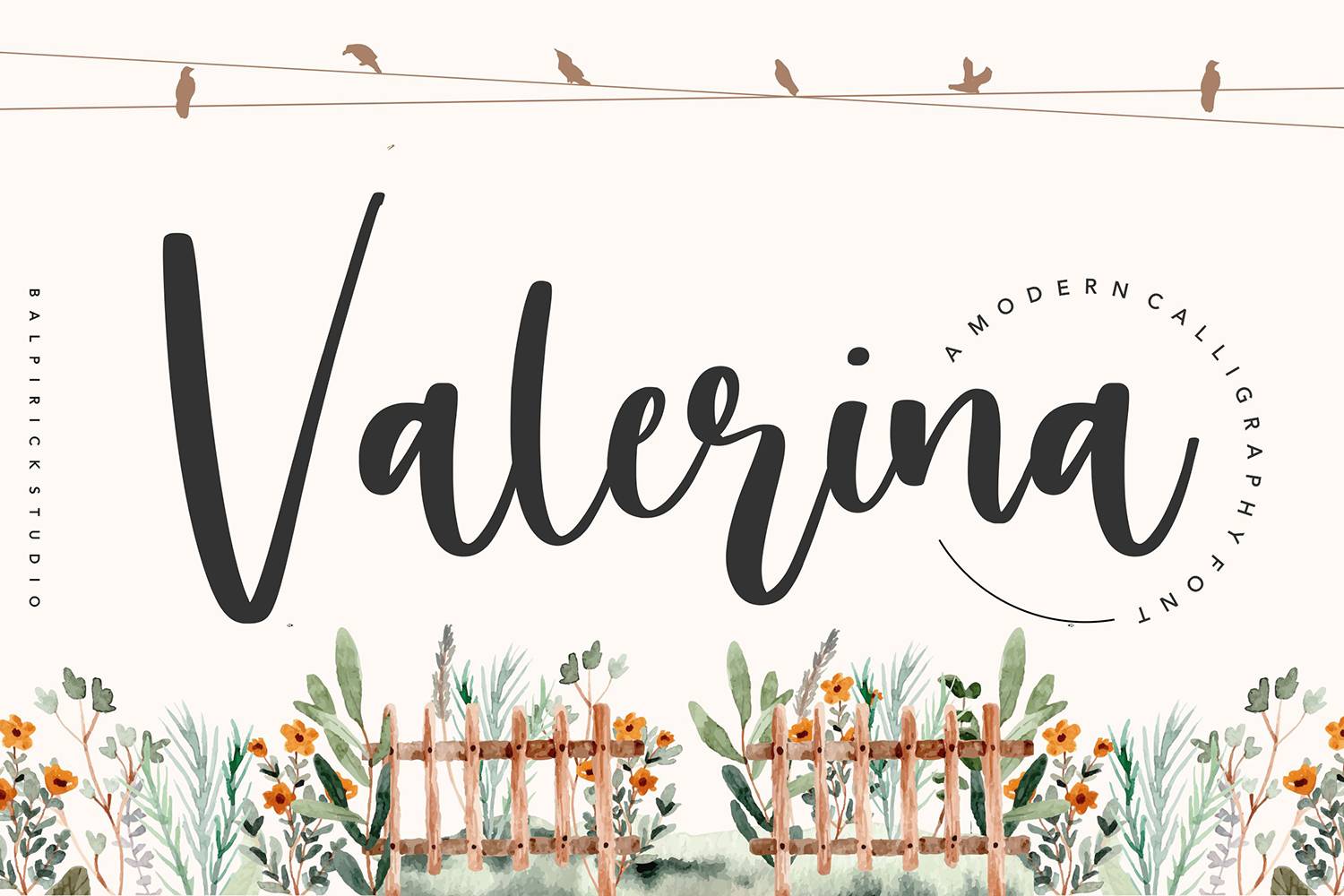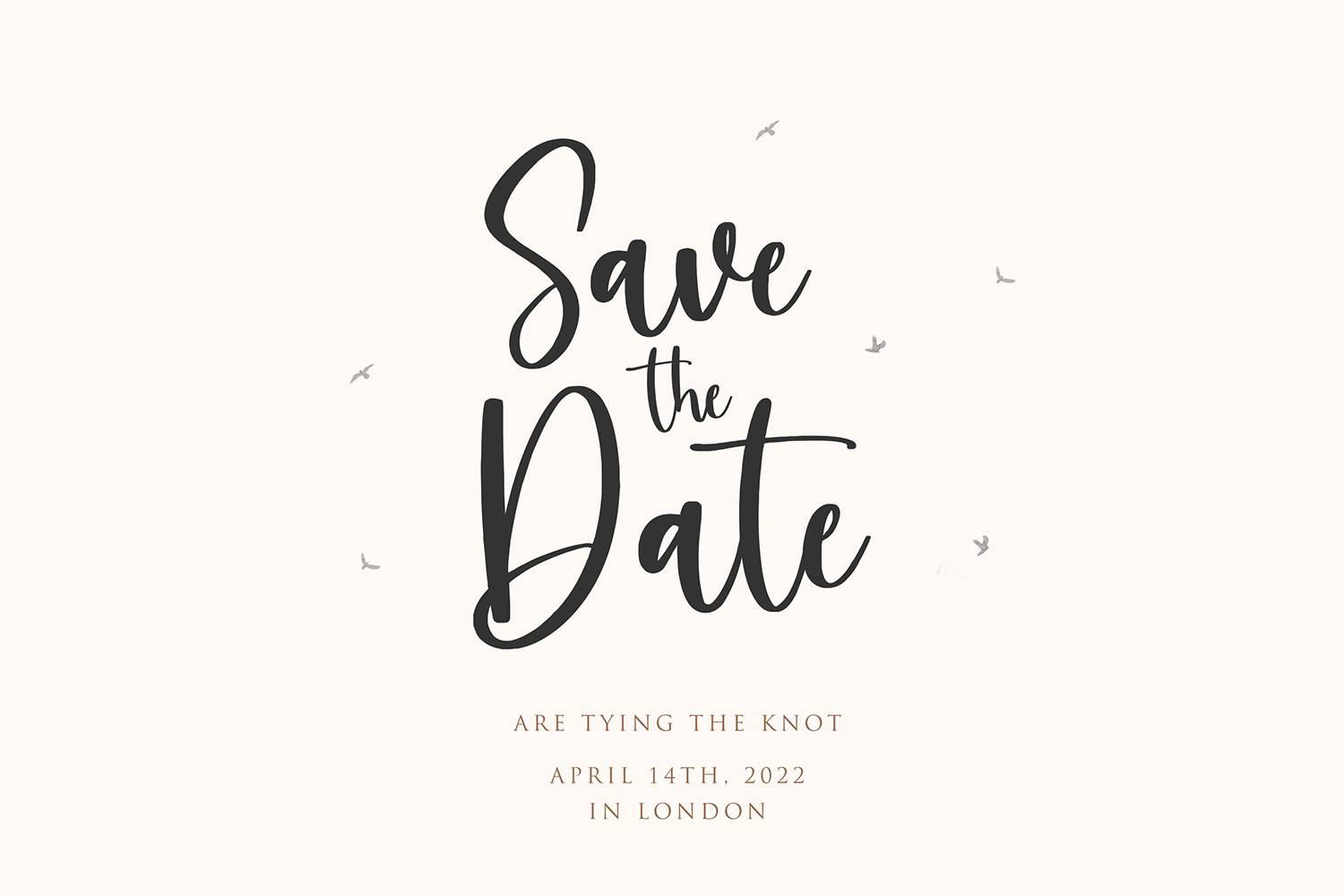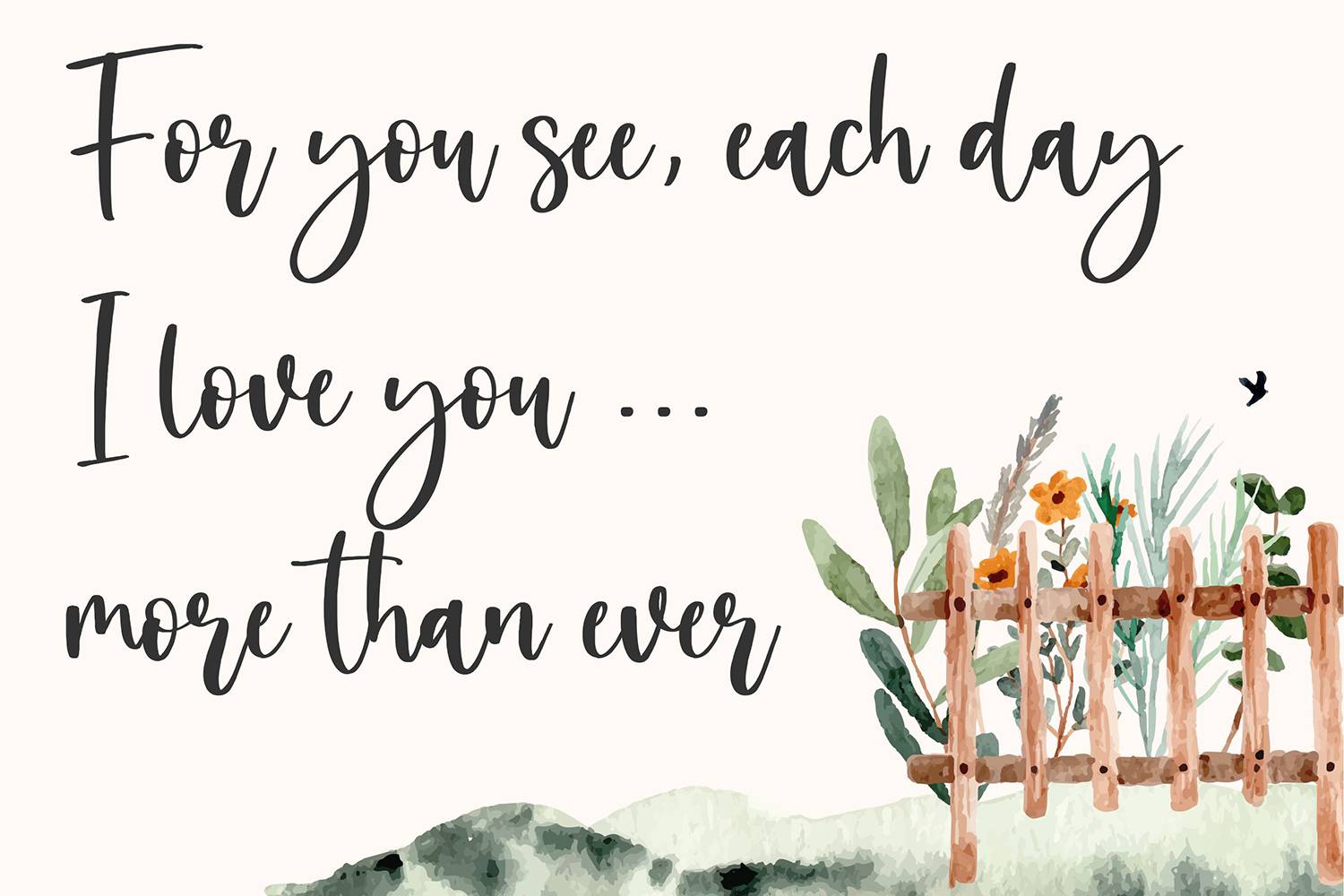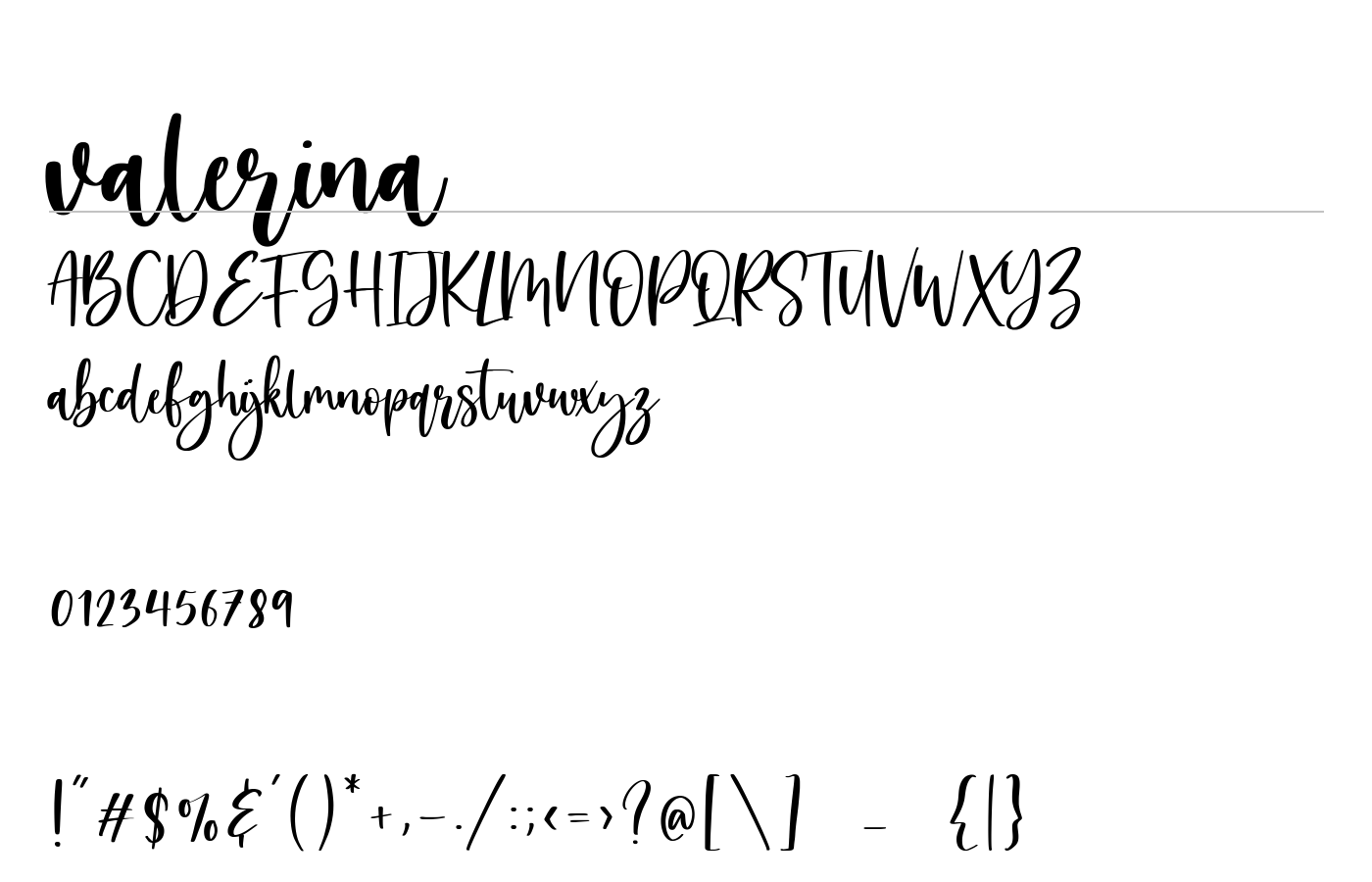
Valerina is a charming script font with a casual yet elegant feel, featuring smooth, fluid strokes and a lively handwritten style. Its tall, slightly condensed letterforms and varied stroke widths give it a playful, modern personality that works beautifully for creative branding, invitations, and editorial headlines. This font’s friendly and stylish nature makes it ideal for projects seeking a personal, approachable touch with a sense of sophistication.
Valerina Font
About Valerina Font